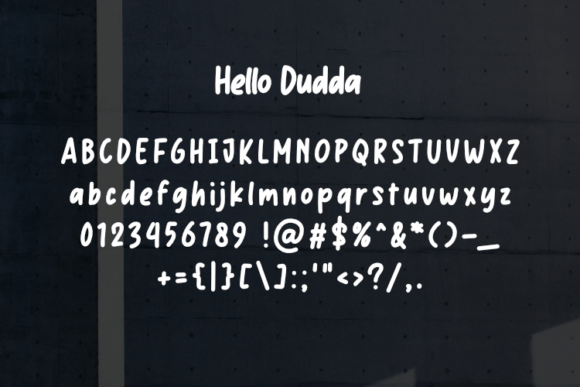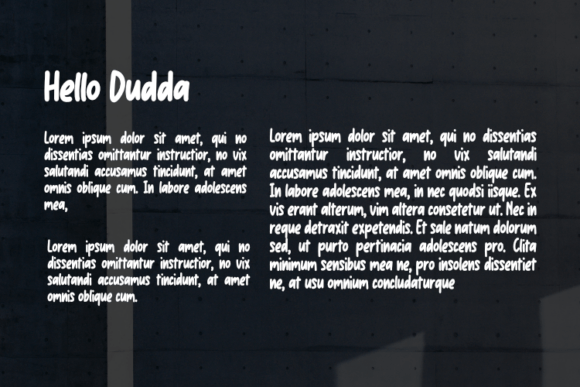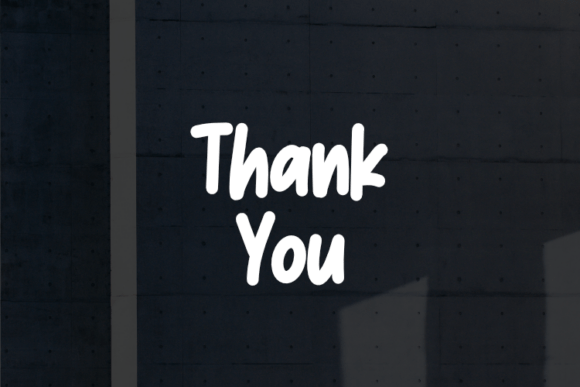
Introduction to Hello Dudda Font
Introducing Hello Dudda, a contemporary typeface that marries elegance and adaptability.
Engineered for peerless readability, it shines in an array of media applications This font, housed in the highly compatible .
Key Features of Hello Dudda Font
Hello Dudda Font offers exceptional quality and versatility, making it a valuable addition to your design toolkit. Whether you’re creating for personal projects or commercial use, Hello Dudda Font delivers professional results.